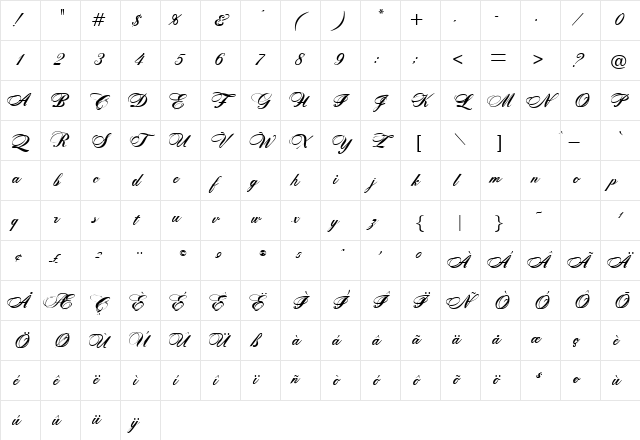
Zither Script Normal
Foundry: Alexandra Gophmann (rusification font Zither script)
Designer: Alexandra Gophmann
Design Context for Zither Script
Zither Script flows with the natural rhythm of handwritten lettering, making it ideal for designs that call for warmth and personal expression.
Font Pairing: Combine Zither Script with a simple geometric sans for maximum contrast - the tension between flowing curves and clean structure is a classic typographic pairing.
Pro Tip: Use Zither Script for short runs of text - names, titles, or taglines. Extended body copy in script faces tires the eye quickly.